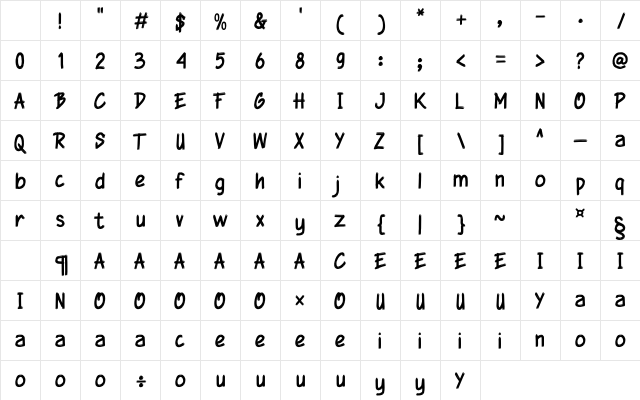
Complete Grass Sun Regular glyph index. Displaying only characters natively supported by Grass Sun Regular font.
Grass Sun is a composed and adaptable typeface that performs quietly and consistently across a wide range of design contexts.